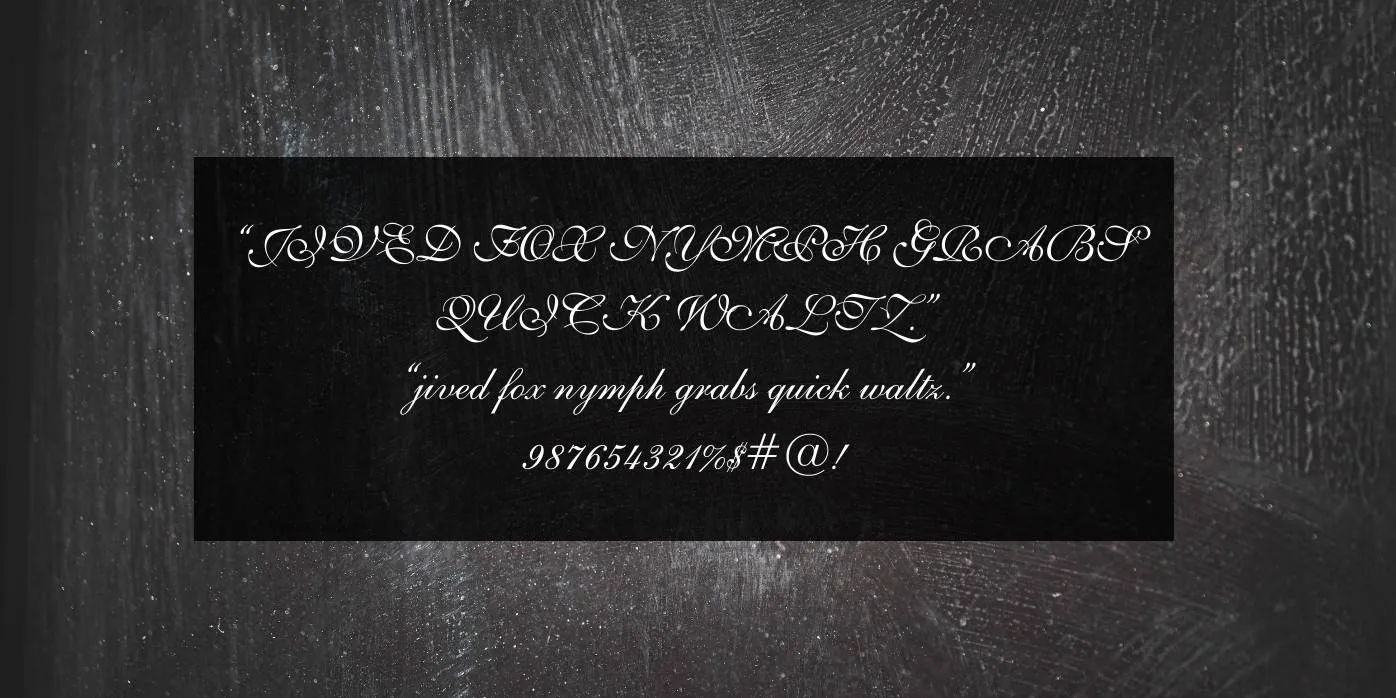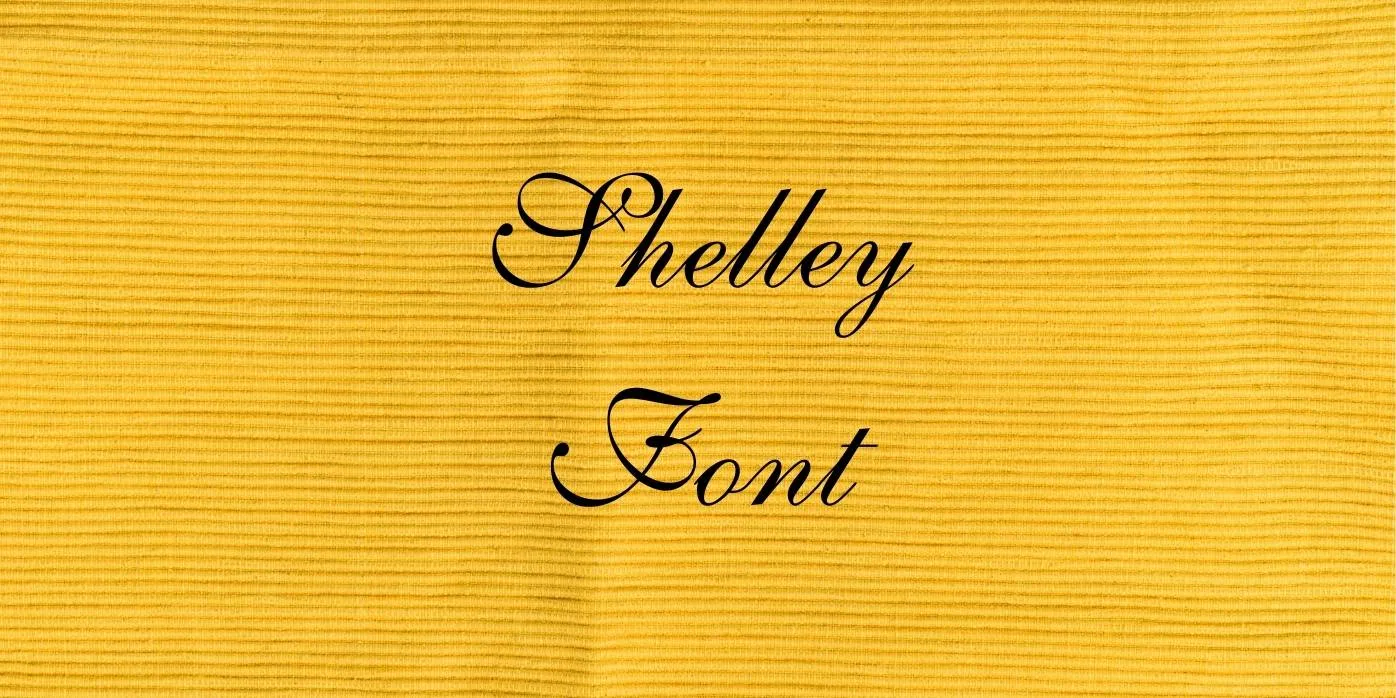
Shelley Font
Shelley Font is a very famous stylish typeface that belongs to script typeface. It was designed by a very well-known designer Erin McLaughlin. Shelley Font has a great demand in the market. Many designers are using this stylish font for their various projects.
Its Bold features make it perfect for many designs. This tremendous typeface is a very versatile typeface that can be used for both personal and commercial purposes. If you are looking for a stylish typeface to add to your collection, Shelley Font is a great option for all of your projects.